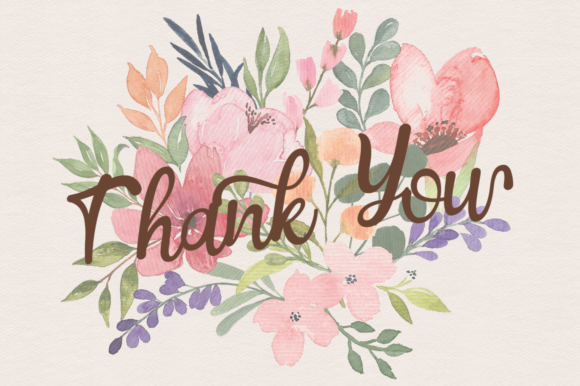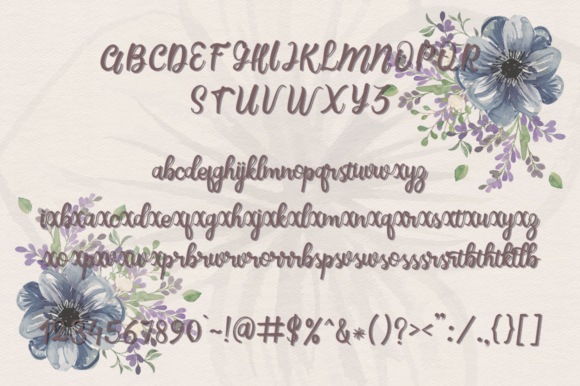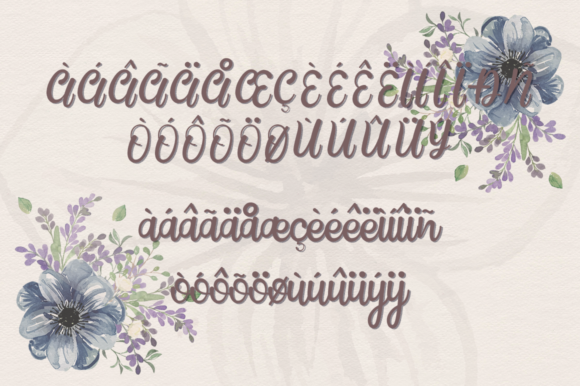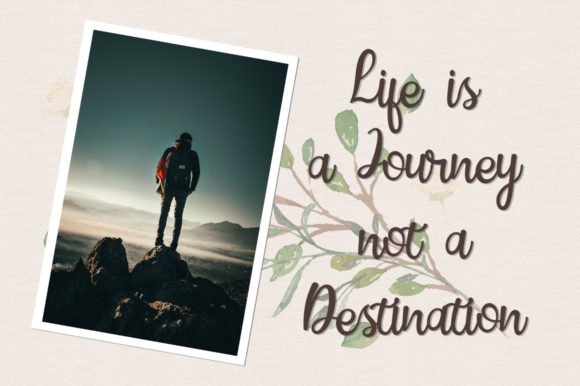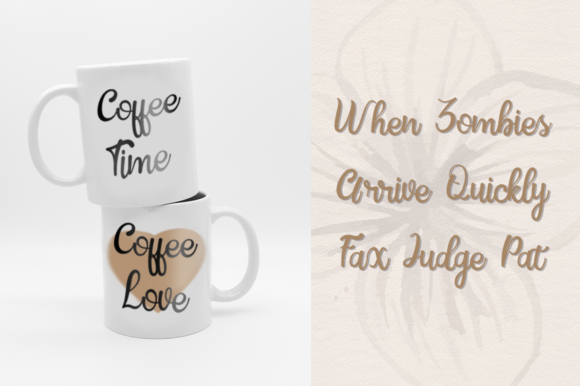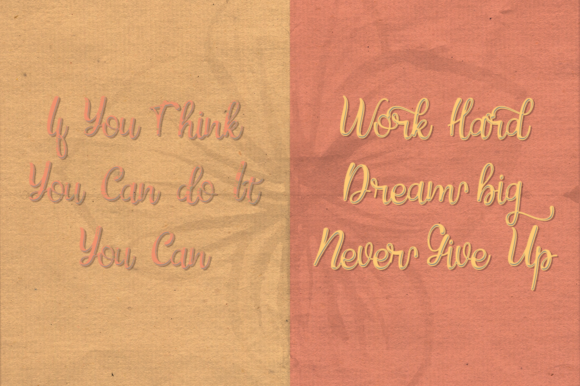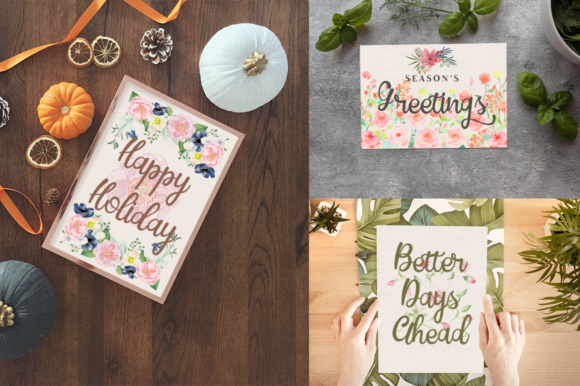
Valetha Font
About Valetha Font
Valetha feels both elegant and authentic, allowing you to create gorgeous calligraphy in an instant. It’s perfect for logos, quotes, invitations, cards, product packaging, headers and much more!